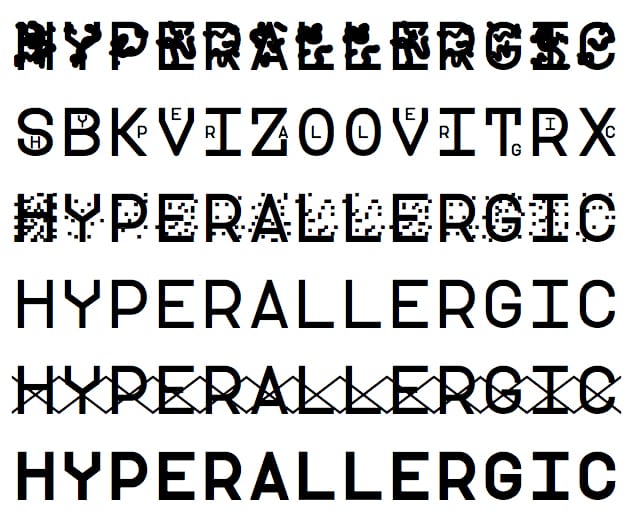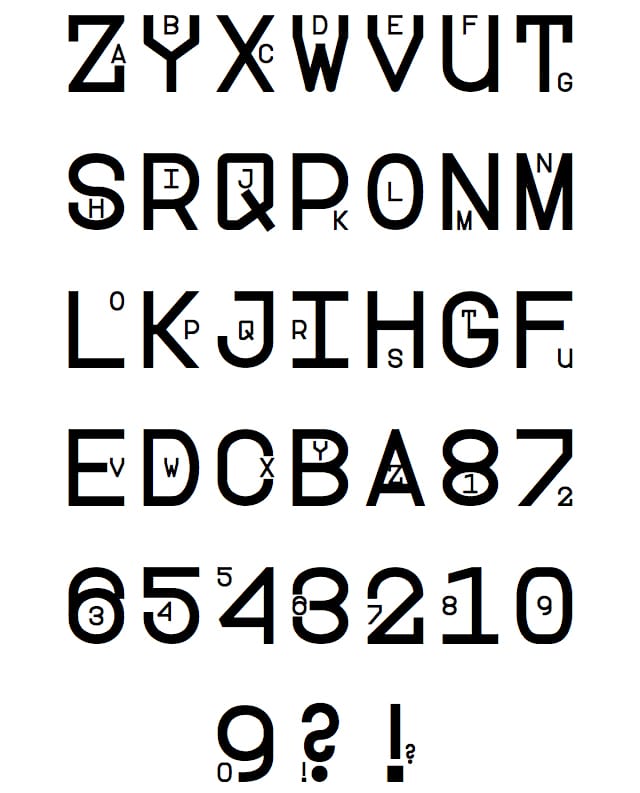
Disrupt NSA Surveillance With This Typeface
As a reaction to government surveillance, the ZXX typeface is embedded with disruptive designs that are meant to combat optical character recognition processes. The four options for online communications camouflage — called XED, Noise, False, and Camo — each have characteristics that keep them legible to humans, but baffling to machines.
The typeface was created by Sang Mun, a designer who also spent time as a contractor with the NSA during his Korean military service. As he explained on The Gradient blog of the Walker Art Center, where he’s a Graphic Design Fellow, “The project started with a genuine question: How can we conceal our fundamental thoughts from artificial intelligences and those who deploy them?” The texts are meant to be impenetrable by software that scans text, such as with the “Camo” style that adds scrawls of distortion, “Noise” that adds clouds of pixels, “XED” that draws optical-fooling patterns over the letters, and “False” where the alphabet is swapped, so that an “A” is secreted in a giant “Z” while you type.
ZXX is available free to download to use in your own statement against surveillance. And that’s really what it is, as Mun acknowledges that the project is really more about a visual message of advocacy to bring out the concern of being watched, rather than a super effective way to keep the NSA off your trail. As he explained in his post:
ZXX is a call to action, both practically and symbolically, to raise questions about privacy, But it represents a broader urgency: How can design be used politically and socially for the codification and de-codification of people’s thoughts? What is a graphic design that is inherently secretive? How can graphic design reinforce privacy? And, really, how can the process of design engender a proactive attitude towards the future — and our present for that matter?